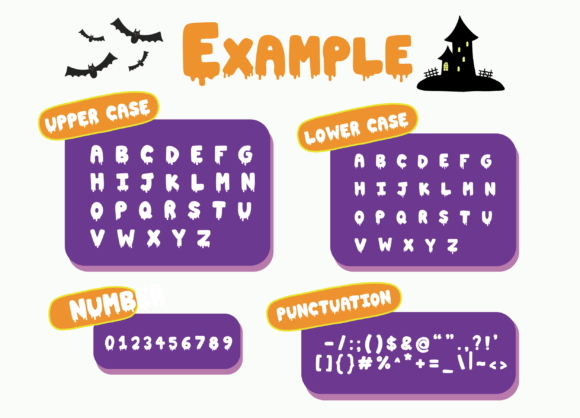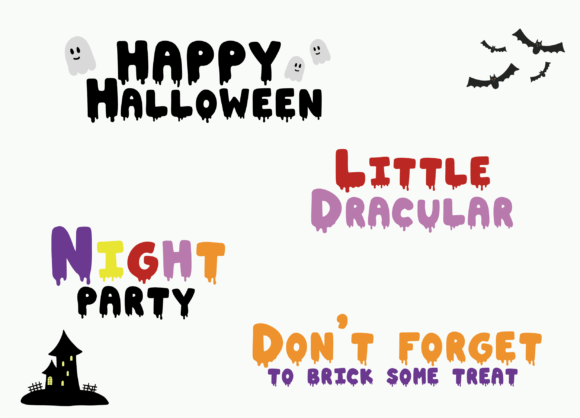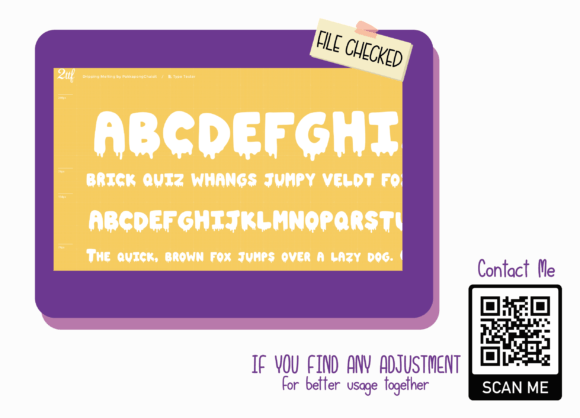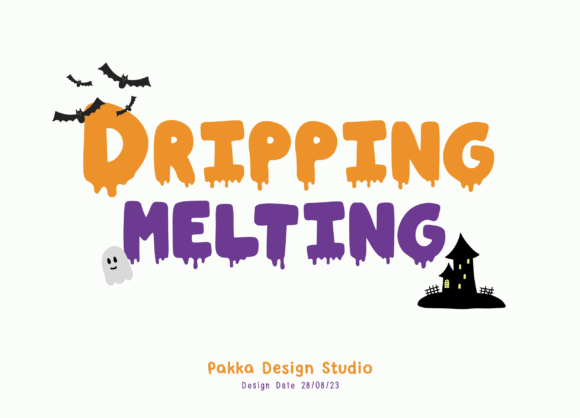
Dripping Melting Font: Unleash Your Creativity with this Whimsical Display Font
Are you tired of using the same old fonts in your designs? Do you want to add a touch of playfulness and creativity to your projects? Look no further than the “Dripping Melting” display font! This unique and eye-catching font is sure to capture the attention of your audience and bring a smile to their faces.
The Inspiration Behind the Font
The “Dripping Melting” font is inspired by the idea of letters made of magical goo. Each character seems to melt and drip with whimsical charm, bringing to mind fun experiments and creative mishaps. The font captures the essence of imaginative messiness, reminiscent of colorful adventures and unexpected surprises. Whether you’re a designer, crafter, or artist, this font is sure to spark your creativity and inspire you to think outside the box.
Characteristics of the Font
The “Dripping Melting” font has a number of characteristics that make it stand out from other fonts. Here are a few:
- Playful and whimsical: The font has a playful and whimsical feel, making it perfect for projects that require a touch of fun and creativity.
- Unique and eye-catching: The dripping and melting appearance of the font makes it truly unique and eye-catching.
- Artistic and authentic: The font adds a touch of artistic authenticity to your design, making it perfect for projects that require a creative and artistic touch.
- Versatile: The font is versatile and can be used in a variety of projects, from children’s designs to artistic and crafty projects.
Uses for the Font
The “Dripping Melting” font is perfect for a variety of projects, including:
- Kids’ designs: The font is perfect for designs aimed at kids, such as children’s books, educational materials, and kids’ websites.
- Artistic and crafty projects: The font is perfect for artistic and crafty projects, such as handmade cards, scrapbooking, and mixed media art.
- Creative branding: The font can be used to create a unique and memorable brand identity for creative businesses, such as art studios, craft shops, and design agencies.
- Social media graphics: The font can be used to create eye-catching social media graphics, such as posters, flyers, and Instagram posts.
Tips for Using the Font
Here are a few tips for using the “Dripping Melting” font:
- Use it sparingly: The font is bold and eye-catching, so use it sparingly to avoid overwhelming your design.
- Pair it with a simple font: Pair the font with a simple font to create contrast and make your design more readable.
- Experiment with colors: The font looks great in bright, bold colors, so don’t be afraid to experiment and find the perfect color scheme for your design.
| Font Name | Dripping Melting Font |
| Author | Pakka Design Studio |
The “Dripping Melting” font is a unique and eye-catching display font that is sure to add a touch of playfulness and creativity to your designs. With its whimsical charm and artistic authenticity, it’s perfect for projects that require a creative and artistic touch. Whether you’re a designer, crafter, or artist, this font is sure to inspire you to think outside the box and unleash your creativity.